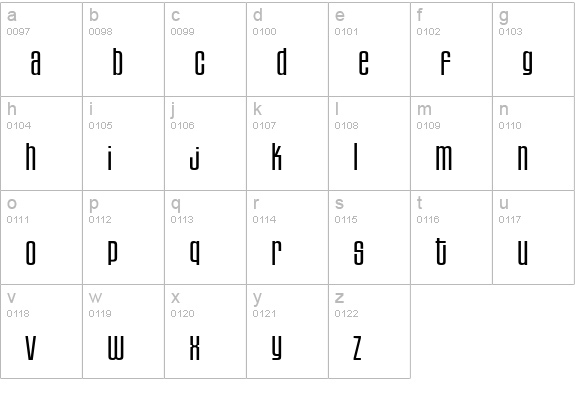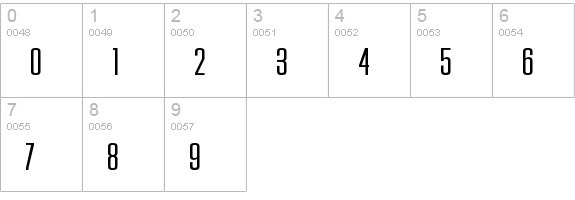
HouseGothic LightFour Font Details
HouseGothic LightFour font is a stunning display font that exudes elegance and sophistication. With its sleek lines and modern appeal, this font is perfect for a wide range of design projects, from branding to editorial design. The clean and minimalistic design of HouseGothic LightFour font makes it versatile and easy to read, while still maintaining a sense of style and flair. What makes HouseGothic LightFour font even more appealing is that it is available for free download at FontsMarket.com. This means that you can easily access and use this gorgeous font in your projects without any cost involved. Whether you're a seasoned designer looking for a new font to add to your collection or a beginner looking to experiment with typography, HouseGothic LightFour font is a fantastic choice that won't break the bank. Overall, HouseGothic LightFour font is a must-have for anyone looking to elevate their designs with a touch of sophistication and style. Download it for free today at FontsMarket.com and start creating stunning visuals that are sure to impress.